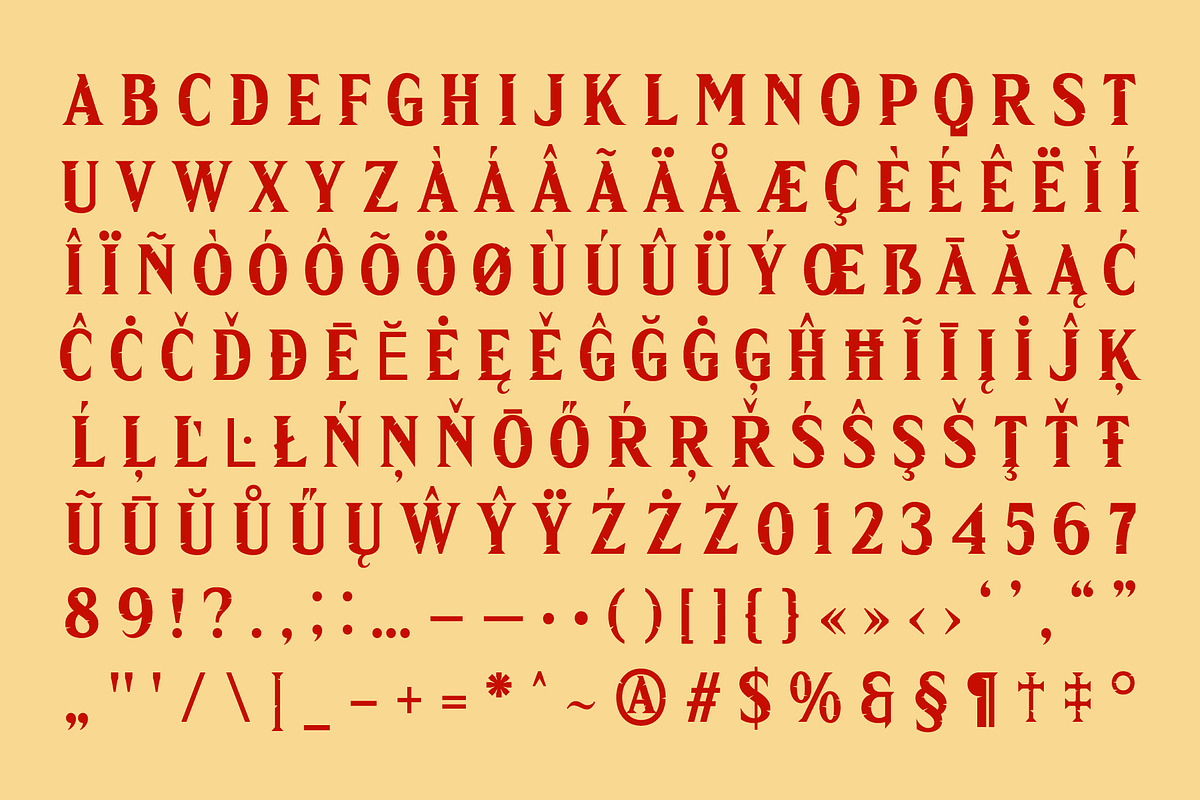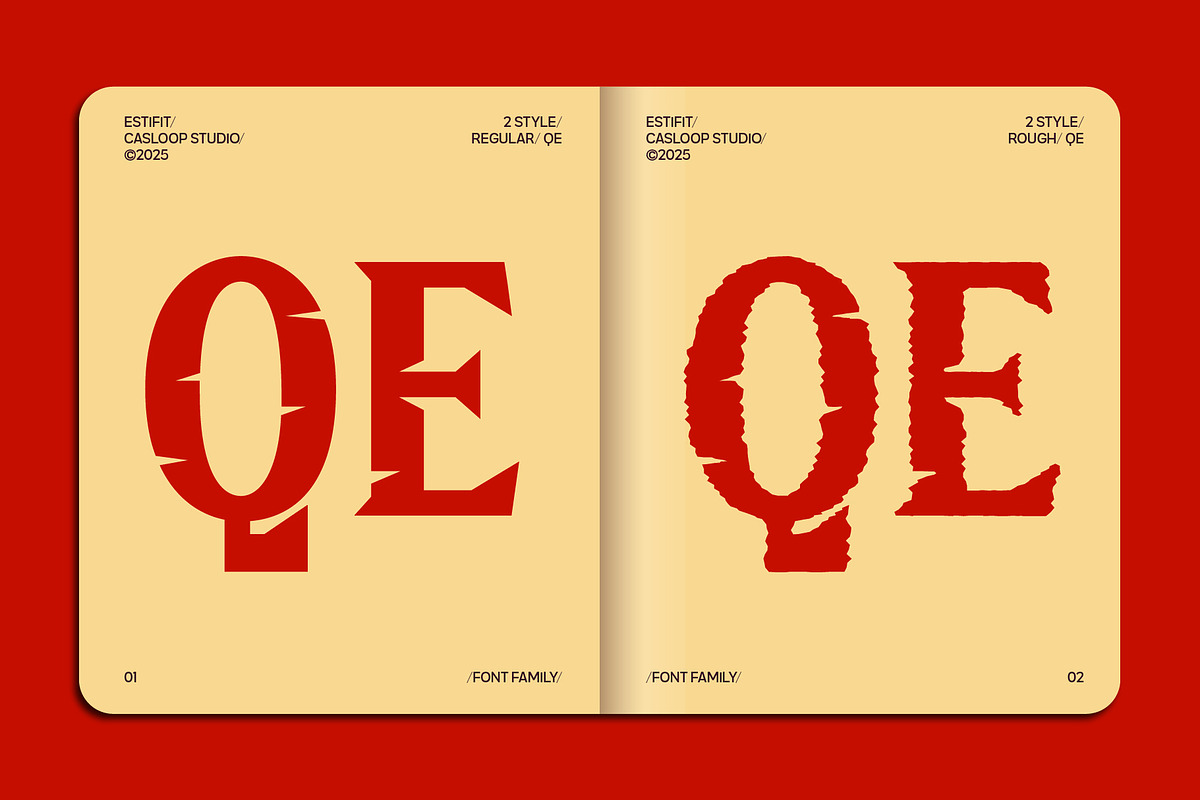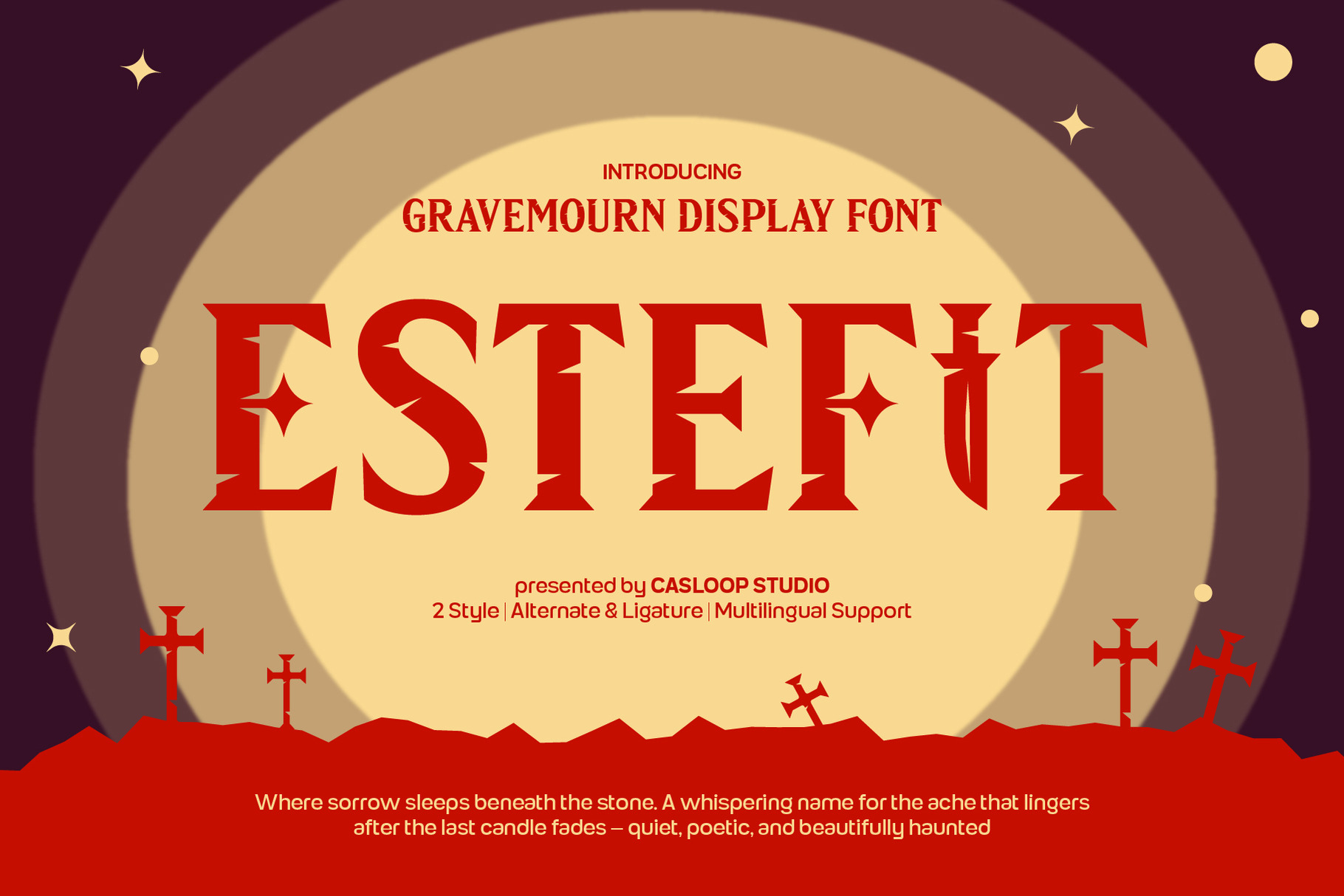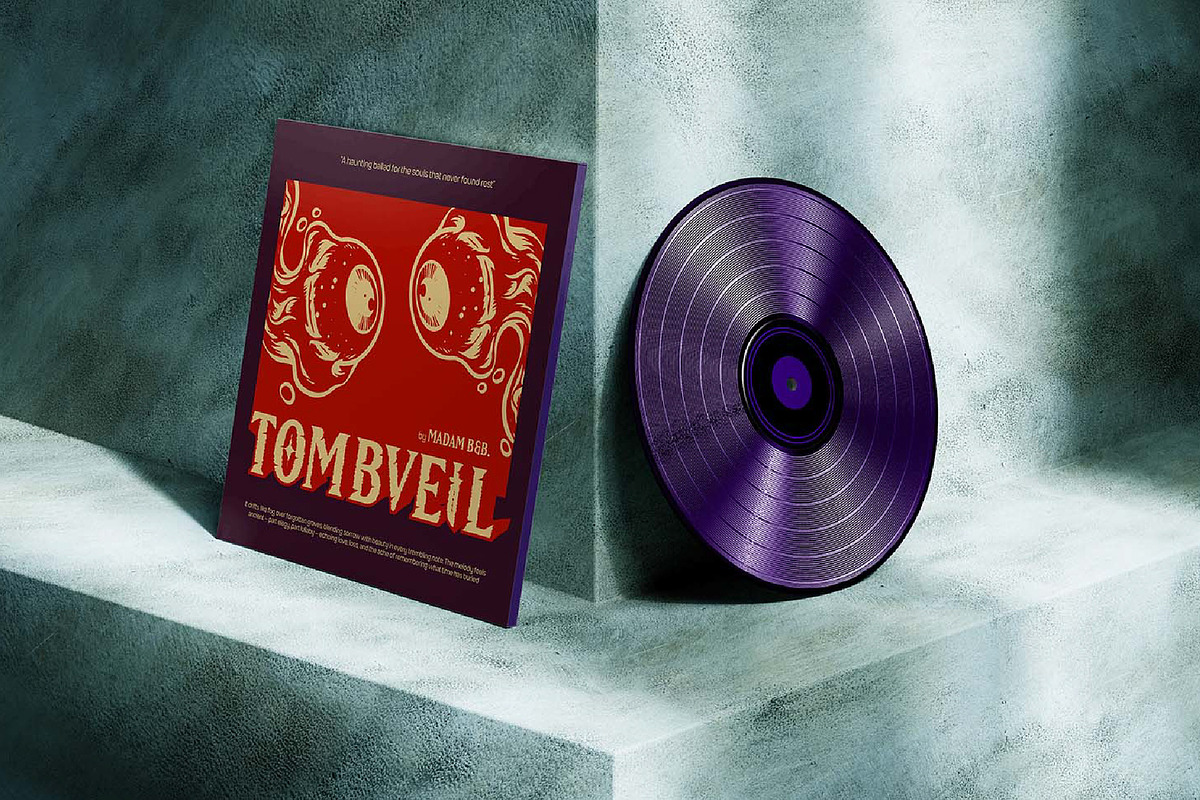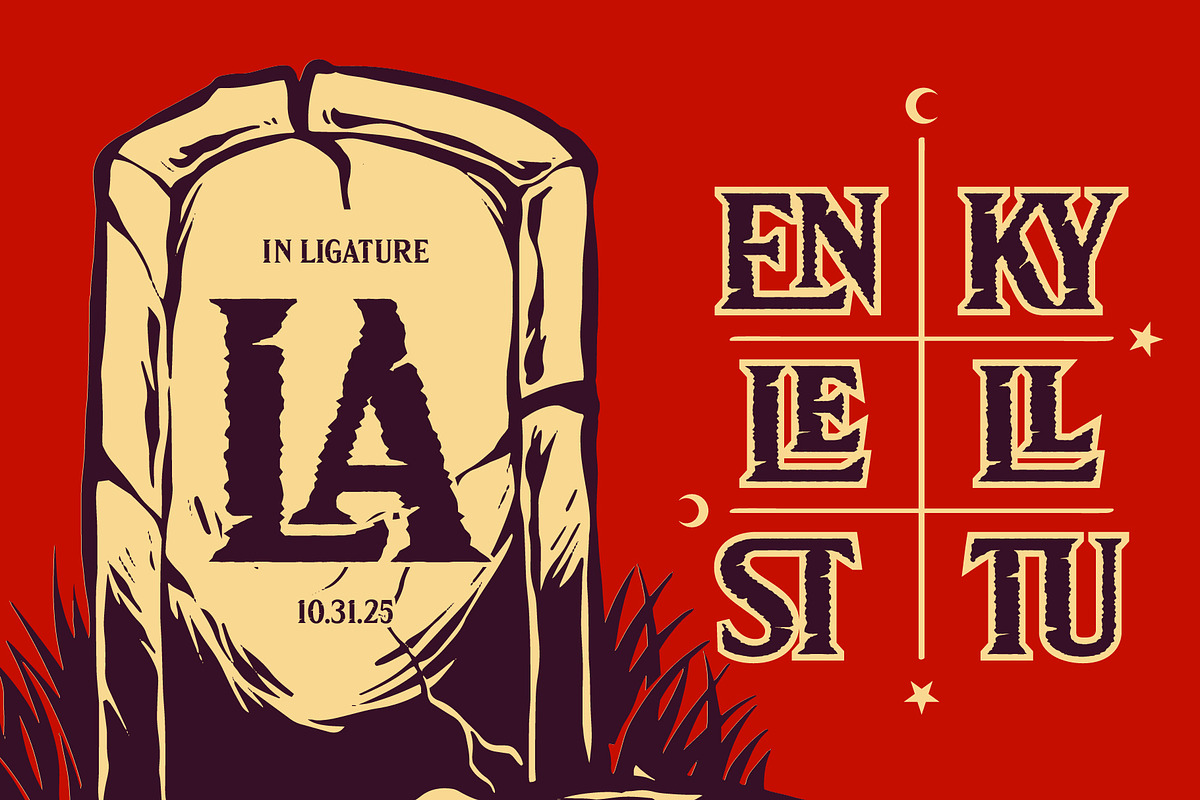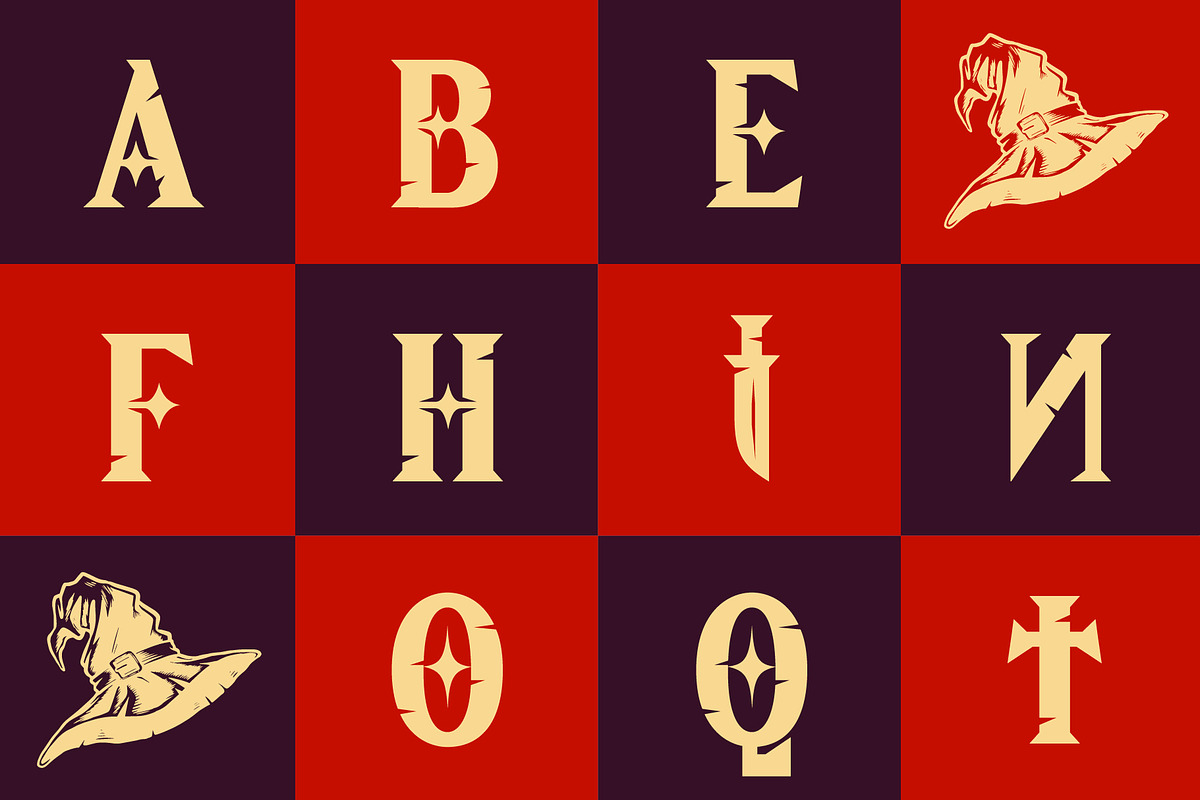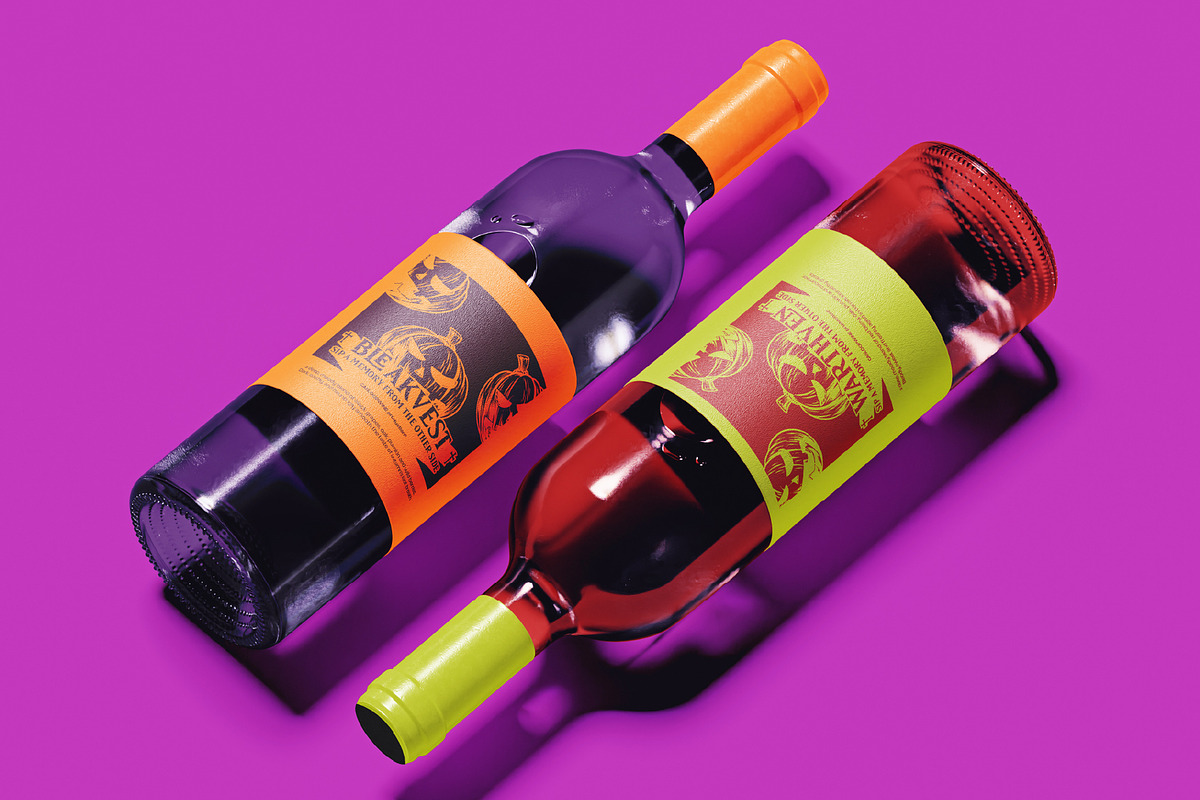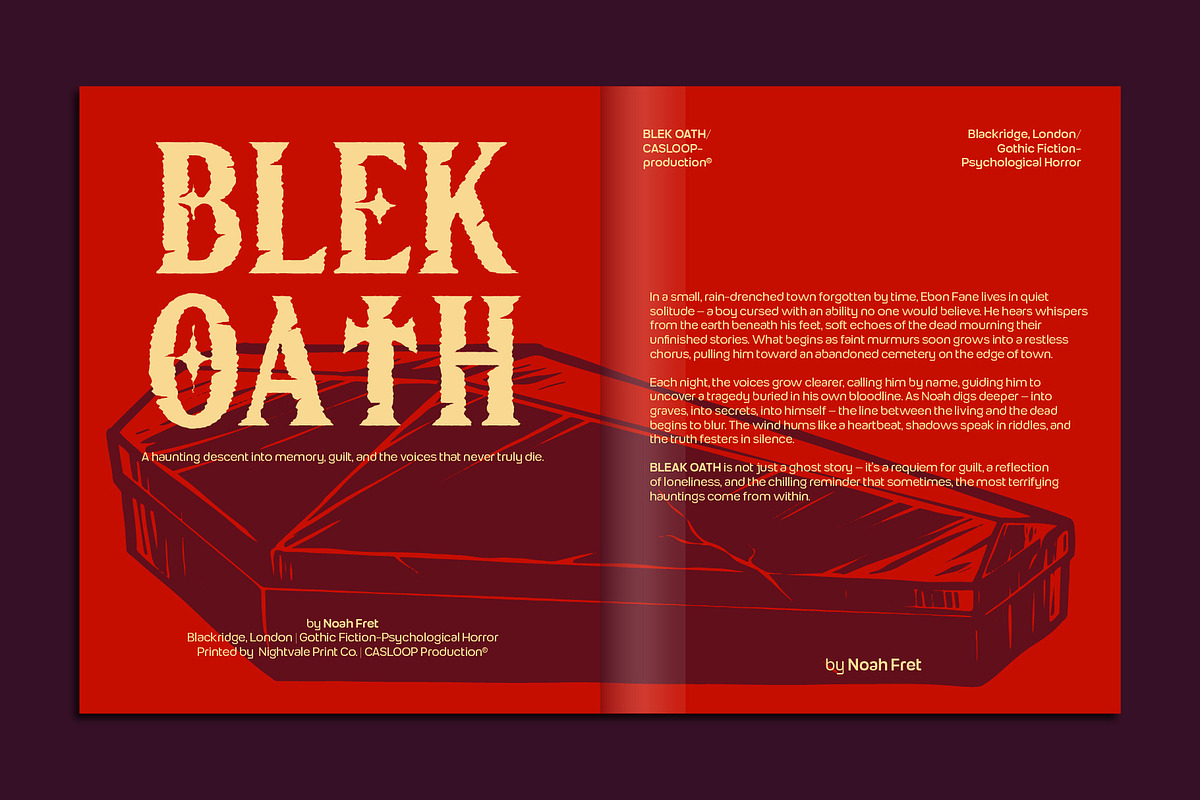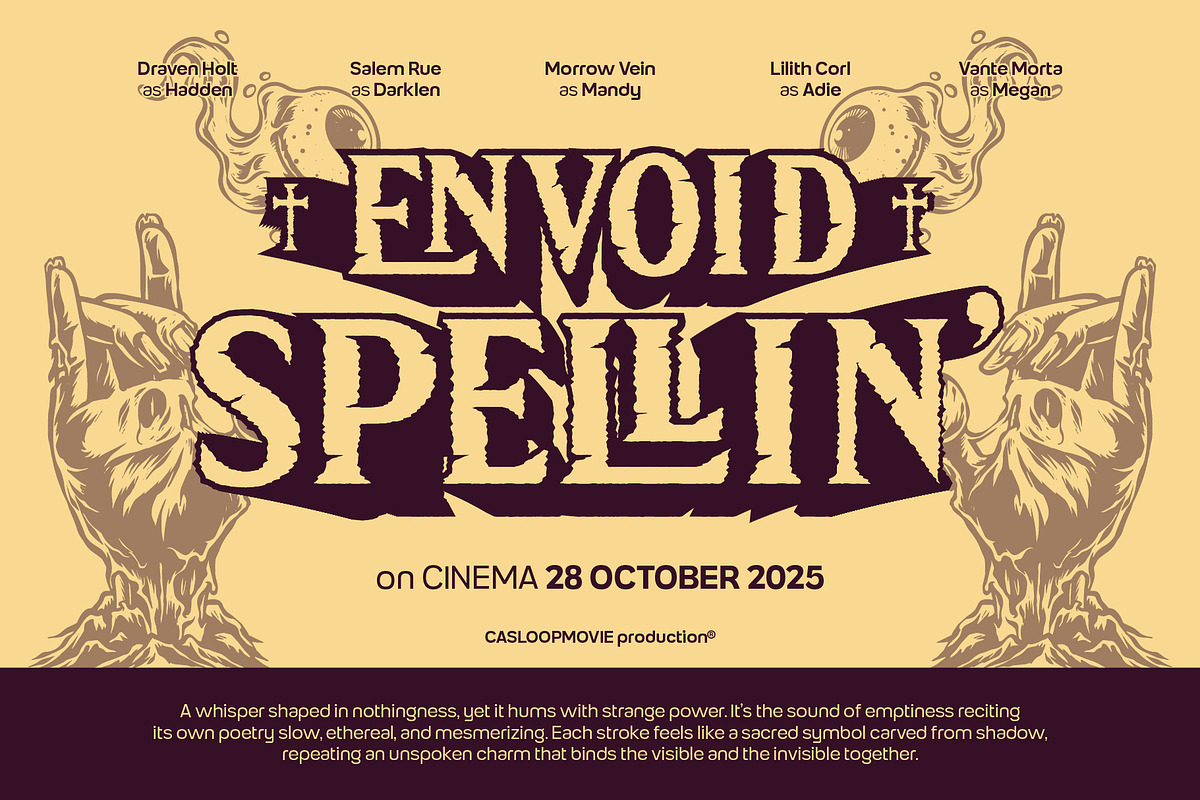
Estefit - Halloween Gothic Font
ESTEFIT Where elegance meets the dark graceful, sharp, and hauntingly bold. is a haunted display font that balances elegance and eeriness in every curve. It’s not just spooky it’s sophisticated. With strong vertical strokes, razor-edged terminals, and a whisper of gothic allure, Estefit feels like a ghost in silk: graceful yet chilling. Each letter flows with quiet confidence especially the T, the spine of Estefit carrying its aura of mystery and refinement. The subtle rough texture makes it feel timeless and cinematic, perfect for designs that crave both drama and beauty. It’s the kind of font that doesn’t scream horror; it seduces it.
Personality
Haunted Elegance – spooky with poise, dark but dignified
Gothic Grace – bold stems and thin contrasts evoke old-world sophistication
Refined Roughness – soft imperfections that add texture and depth
Mysterious Power – strong, feminine, and quietly intimidating
Feels like: candlelight over marble, whispered spells, slow-burn beauty with danger underneath
Best For Halloween & gothic-themed luxury branding Editorials, book covers, or cinematic title designs Beauty, perfume, and dark fashion campaigns Event posters, haunted boutique identities
With 2 styles Regular and Rough Including (OTF, TTF, WOFF, and WOFF2), Estefit adapts effortlessly between polished elegance and textured imperfection. Its extended multilingual support makes it global-ready, while its distinct vertical rhythm gives every headline a signature silhouette. From haunted luxury branding to cinematic horror visuals Estefit isn’t just designed to impress, but to haunt beautifully.